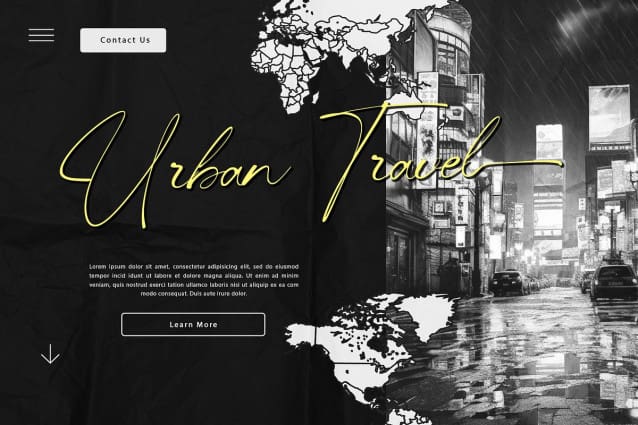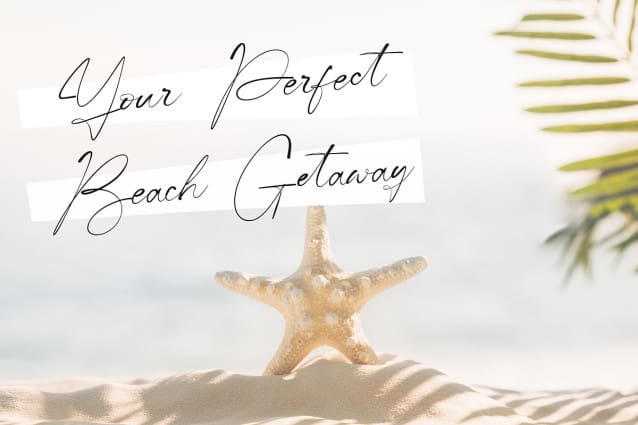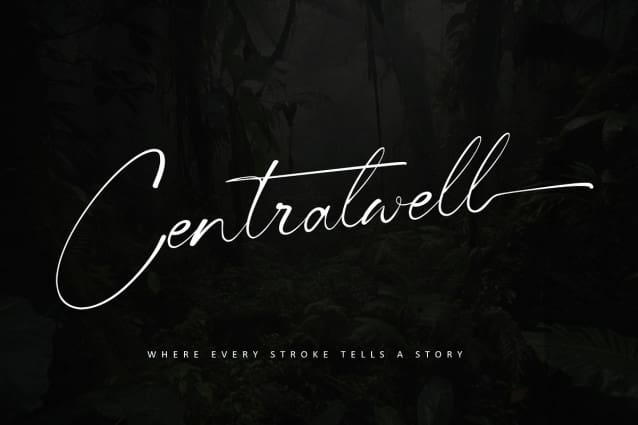
Centralwell Script Font
Centralwell Script Font a captivating handwritten font that exudes elegance and charm. With its fluid strokes and impeccable letterforms, this font adds a personal touch and authenticity to your projects. Whether for branding, packaging, invitations, website, posters, logos, advertising, or any creative endeavor requiring a dash of class, “Centralwell” elevates your designs with its enchanting allure. Embrace the handwritten beauty and timeless charm of “Centralwell Script,” leaving a lasting impression with every stroke.